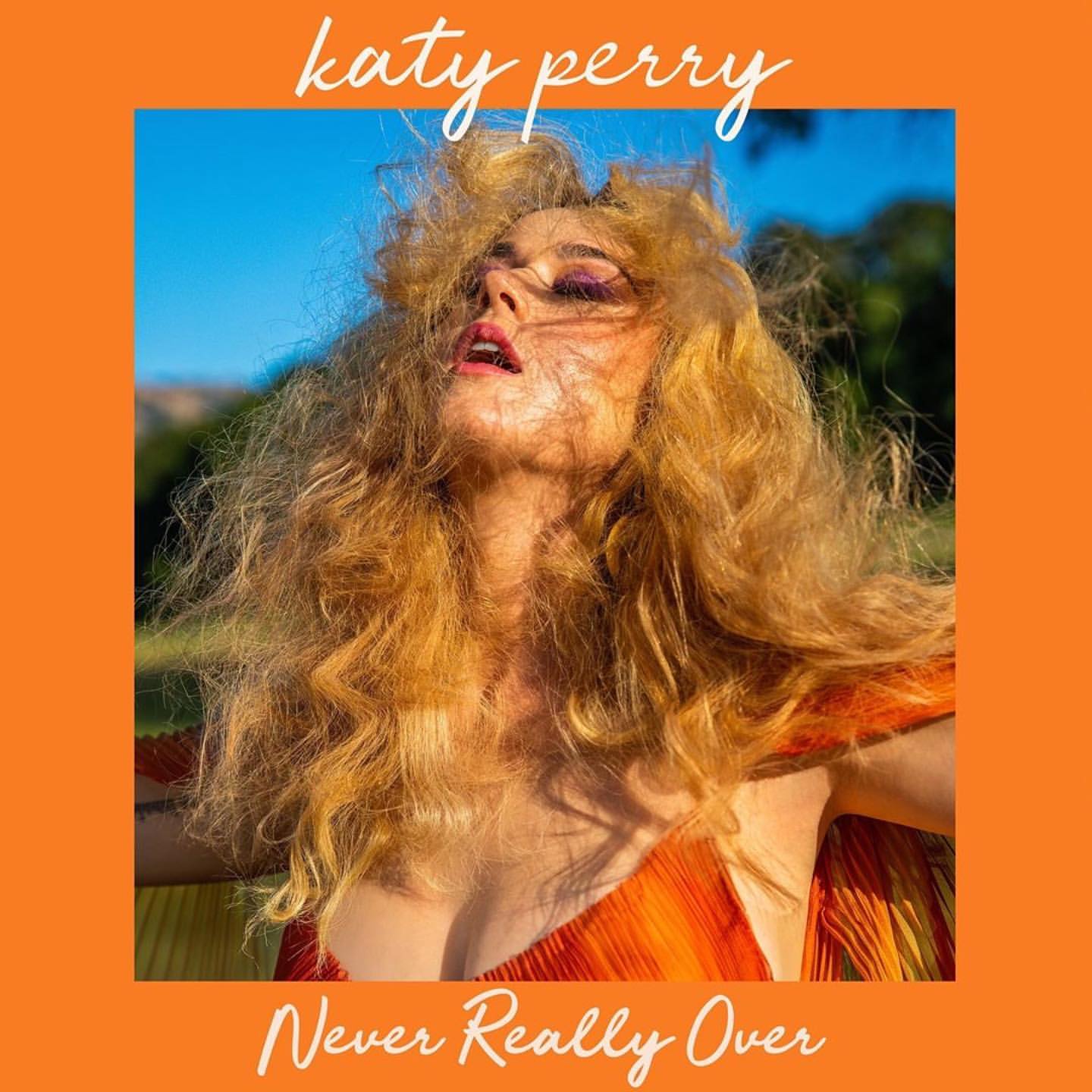
Never Really Over Font
The cover art's handwritten script resembles Creatype Studio's Jelytta font, available in four weights and styles for purchase here, or a free download is also available in the Fonts Used Section.